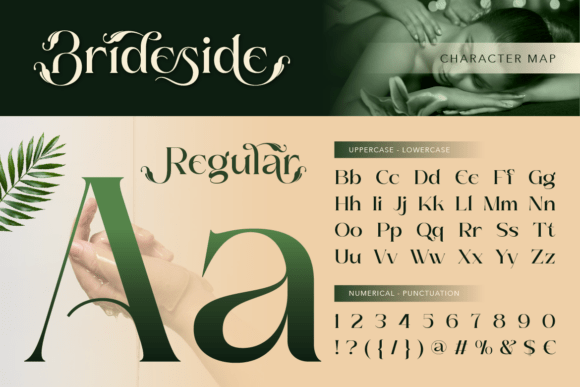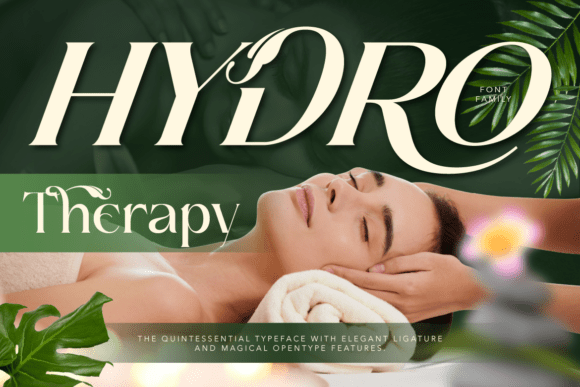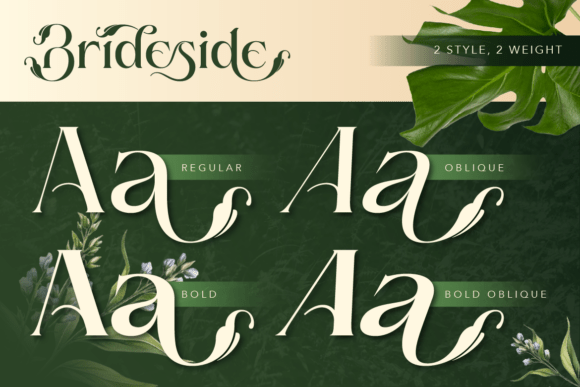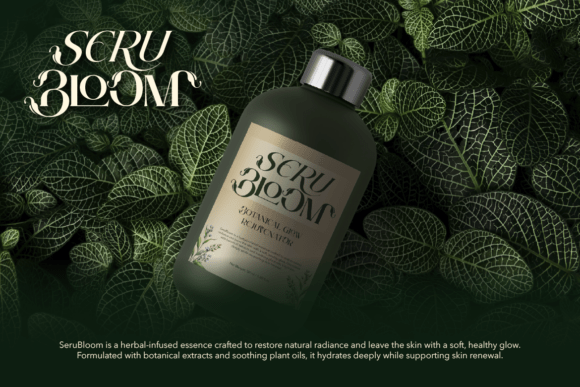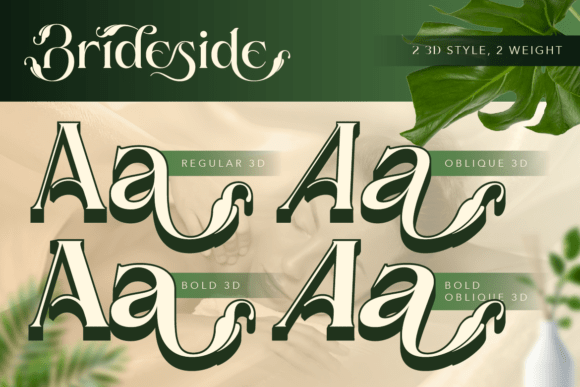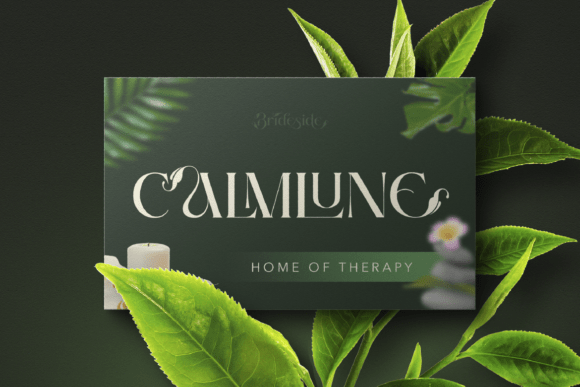
The Elegant Charm of Brideside Font: A Designer’s Delight
I’ll never forget the time I was working on a wedding invitation project, and my client asked for a font that exuded elegance, romance, and a touch of whimsy. I scoured the internet, tried countless fonts, but nothing seemed quite right. That was until I stumbled upon Brideside Font. With its graceful curves, distinctive botanical touch, and luxurious feel, it was love at first sight! In this article, I’ll share my experience with Brideside, its features, and how to make the most of this beautiful font.
What Makes Brideside Font Special?
Brideside is an elegant display serif font family designed to evoke a sense of calmness and sophistication. Its unique alternates feature subtle leaf-inspired details, adding a natural and organic feel to the typography. The font comes in multiple styles, including Regular, Bold, Oblique, and 3D styles, along with elegant ligatures and alternates to create stunning combinations.
- ✨ Elegant and refined design with a distinctive botanical touch
- ✅ Multiple styles, including Regular, Bold, Oblique, and 3D styles
- ✅ Elegant ligatures and alternates for added creativity
- ✅ Perfect for wedding designs, spa & wellness branding, beauty products, and luxury packaging
- ⚠️ Some users may find the font a bit too delicate for certain design applications
- 🤔 Limited use of Brideside in body text due to its display serif nature
The Story Behind Brideside Font
Brideside Font was designed with the intention of creating a typography that exudes elegance, romance, and sophistication. The designer aimed to craft a font that would be perfect for wedding designs, spa & wellness branding, and luxury packaging. Inspired by the beauty of nature and the world of botany, Brideside features subtle leaf-inspired details that add a touch of whimsy to the typography.
Q: What type of designs is Brideside Font best suited for?
A: Brideside Font is perfect for wedding designs, spa & wellness branding, beauty products, luxury packaging, editorial layouts, and nature-inspired brands.
Q: Can I use Brideside Font for body text?
A: While Brideside is a beautiful font, it’s primarily designed for display use. It’s recommended to use it for headings and titles, rather than body text.
Q: Does Brideside Font come with ligatures and alternates?
A: Yes, Brideside Font comes with elegant ligatures and alternates, allowing you to create stunning combinations and customize your typography.